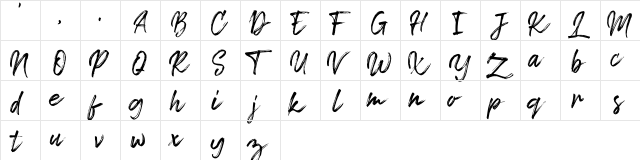
Tropical Summer Brush Regular
Design Context for Tropical Summer Brush Typeface
Tropical Summer Brush flows with the natural rhythm of handwritten lettering, making it ideal for designs that call for warmth and personal expression.
Font Pairing: Combine Tropical Summer Brush with a simple geometric sans for maximum contrast — the tension between flowing curves and clean structure is a classic typographic pairing.
Pro Tip: Pair Tropical Summer Brush with a clean sans-serif for supporting text. The contrast between fluid script and geometric structure creates an elegant typographic hierarchy.